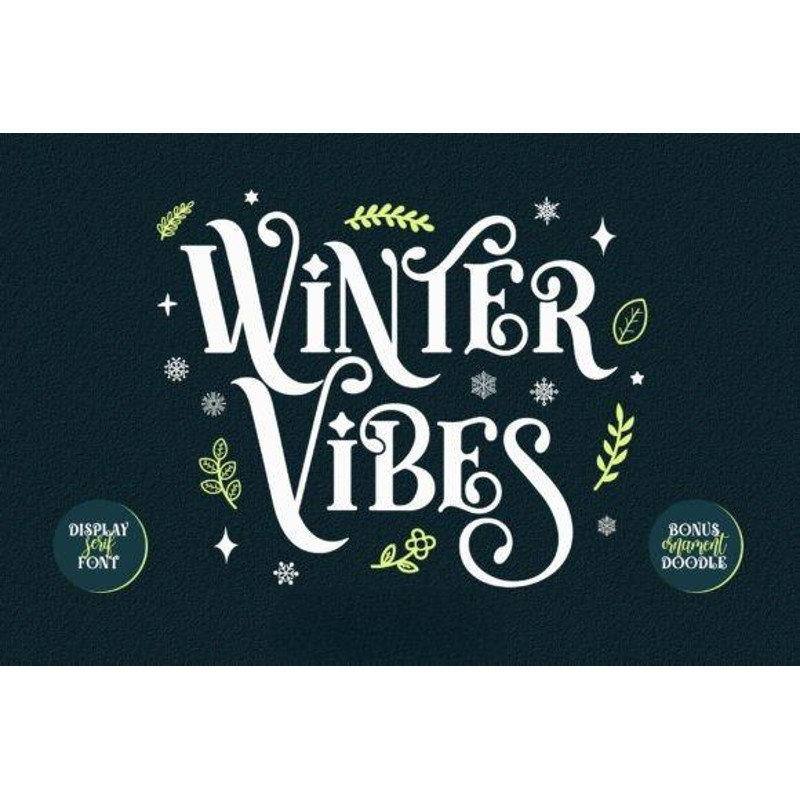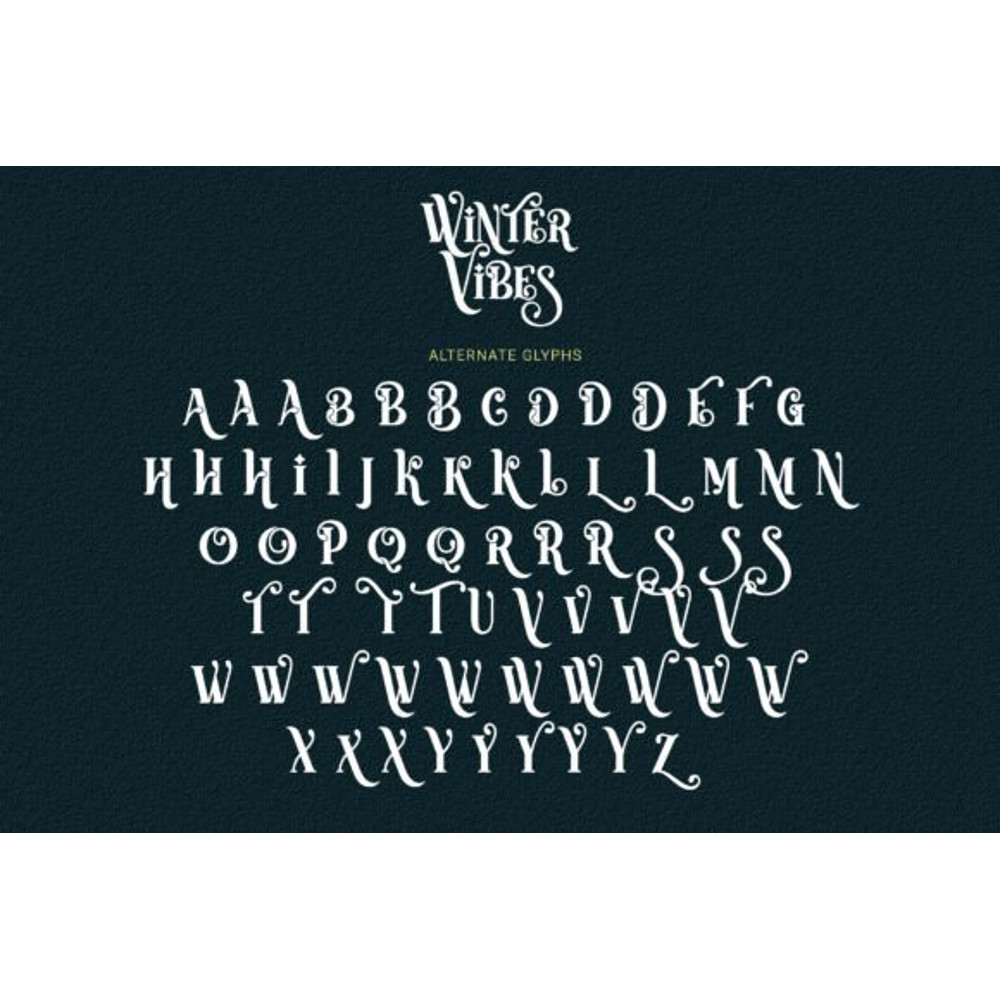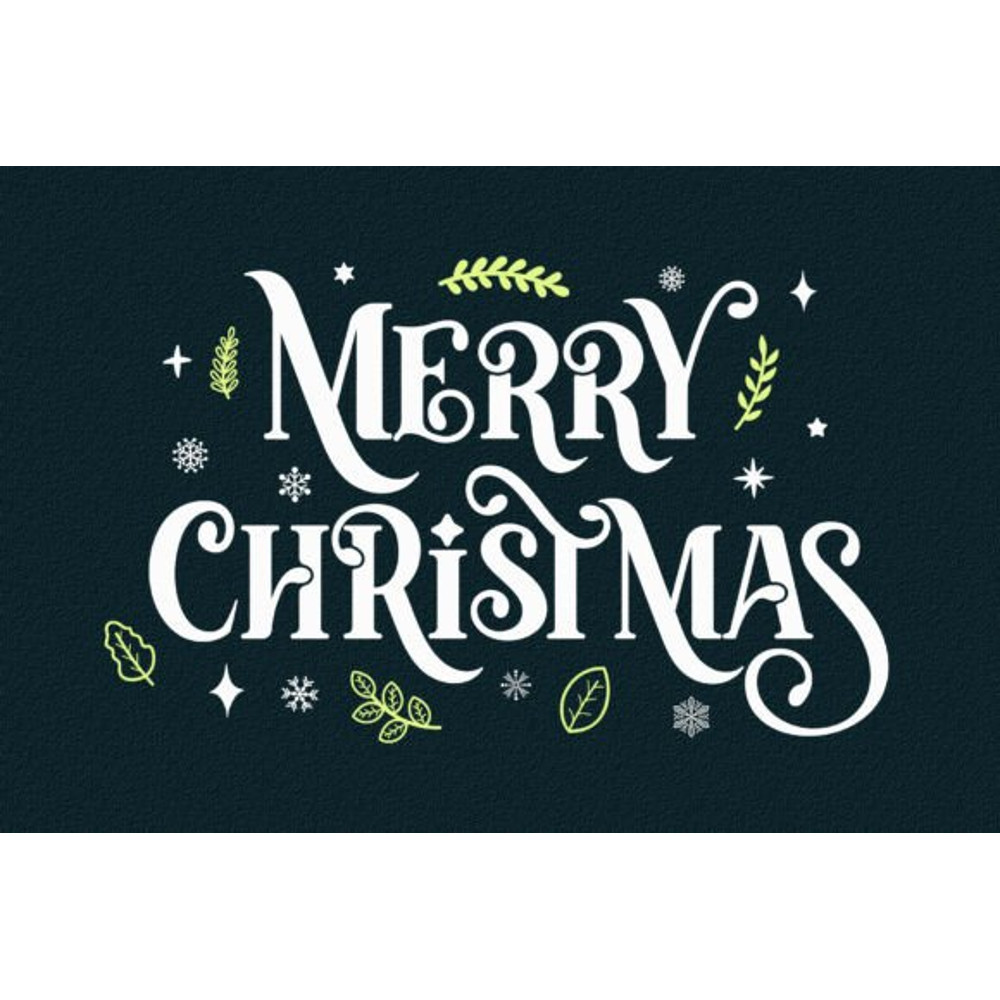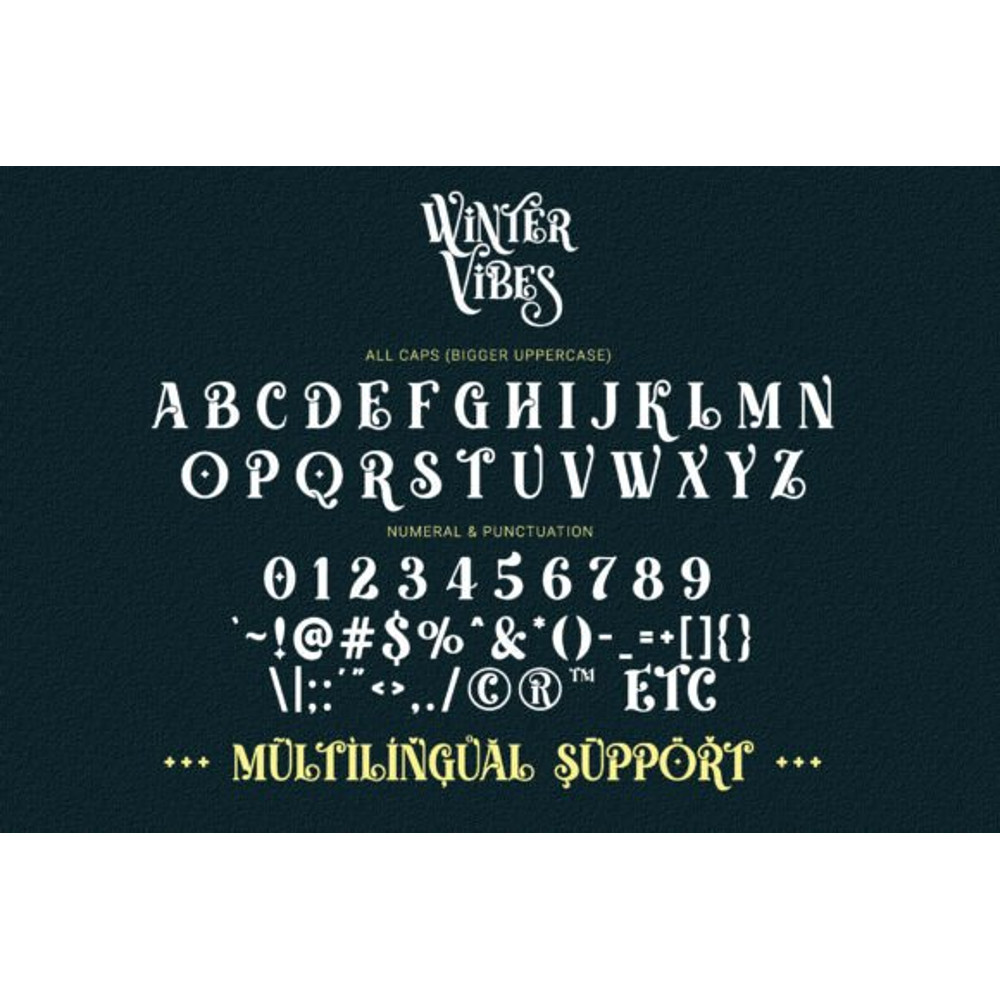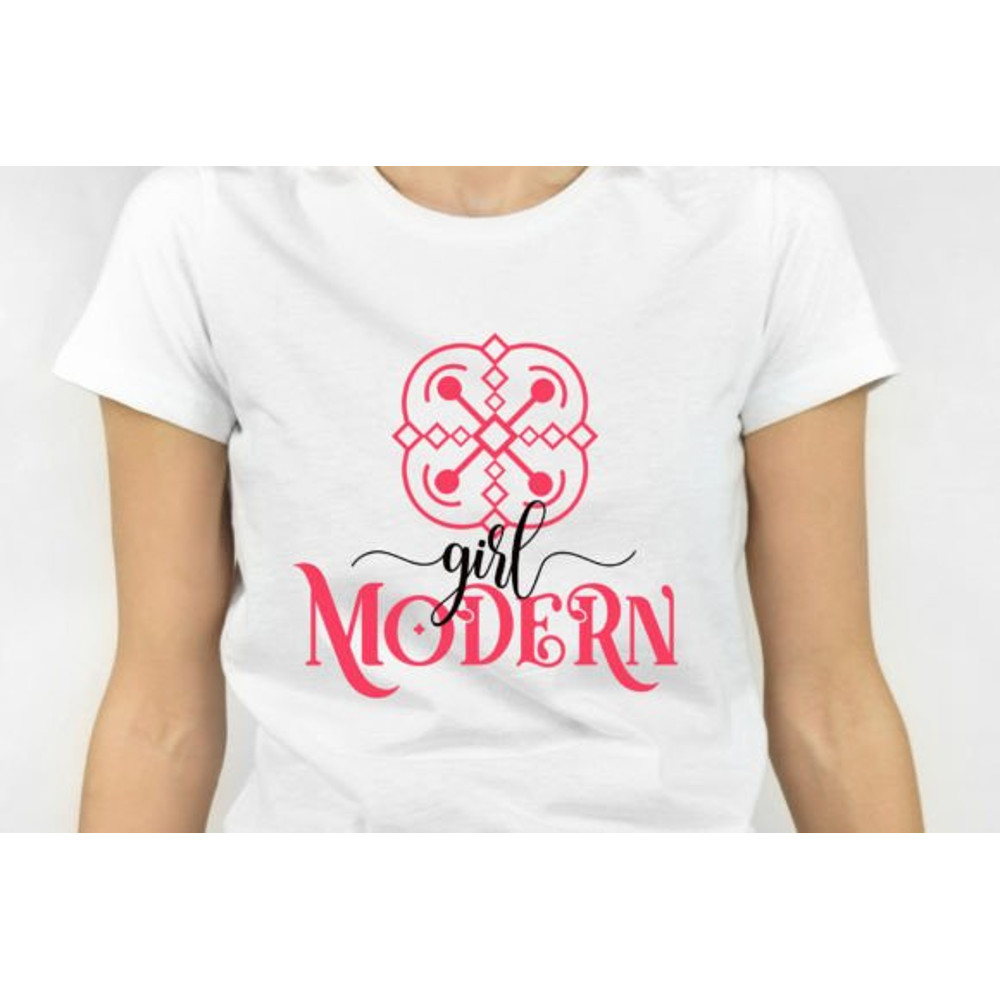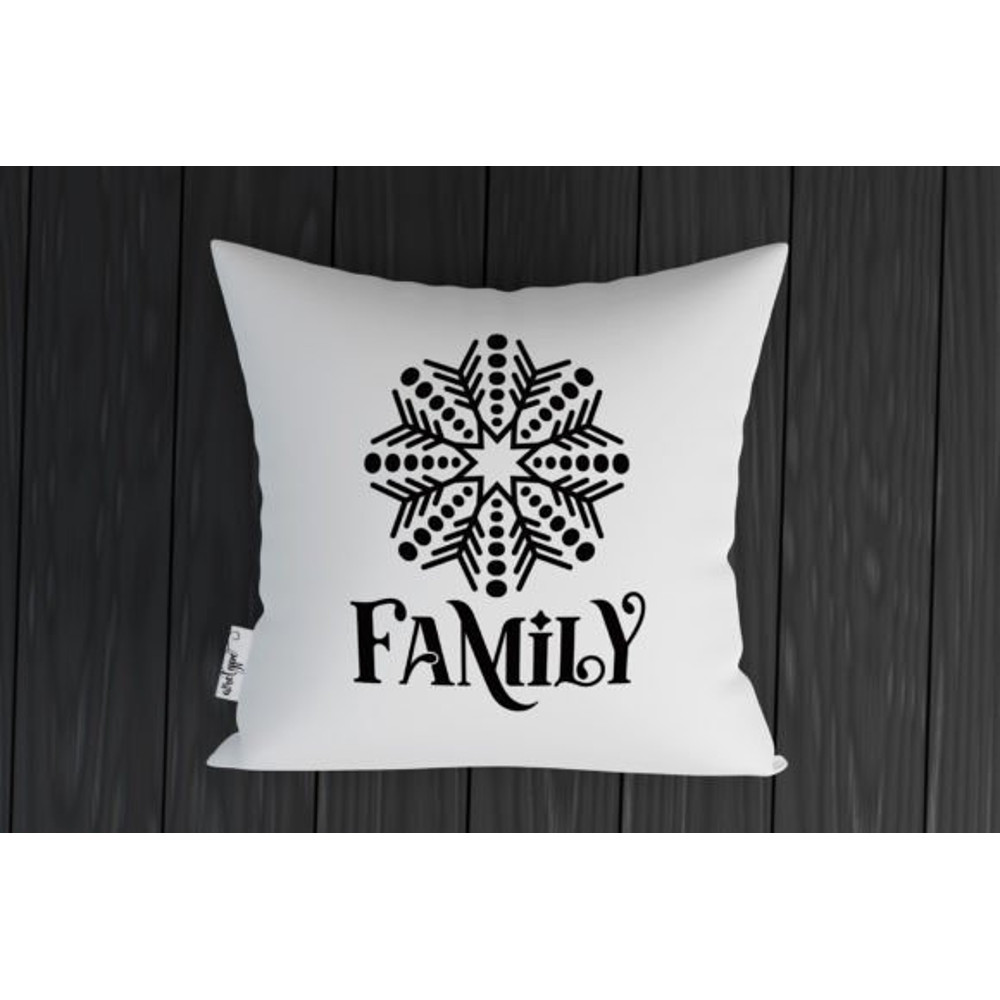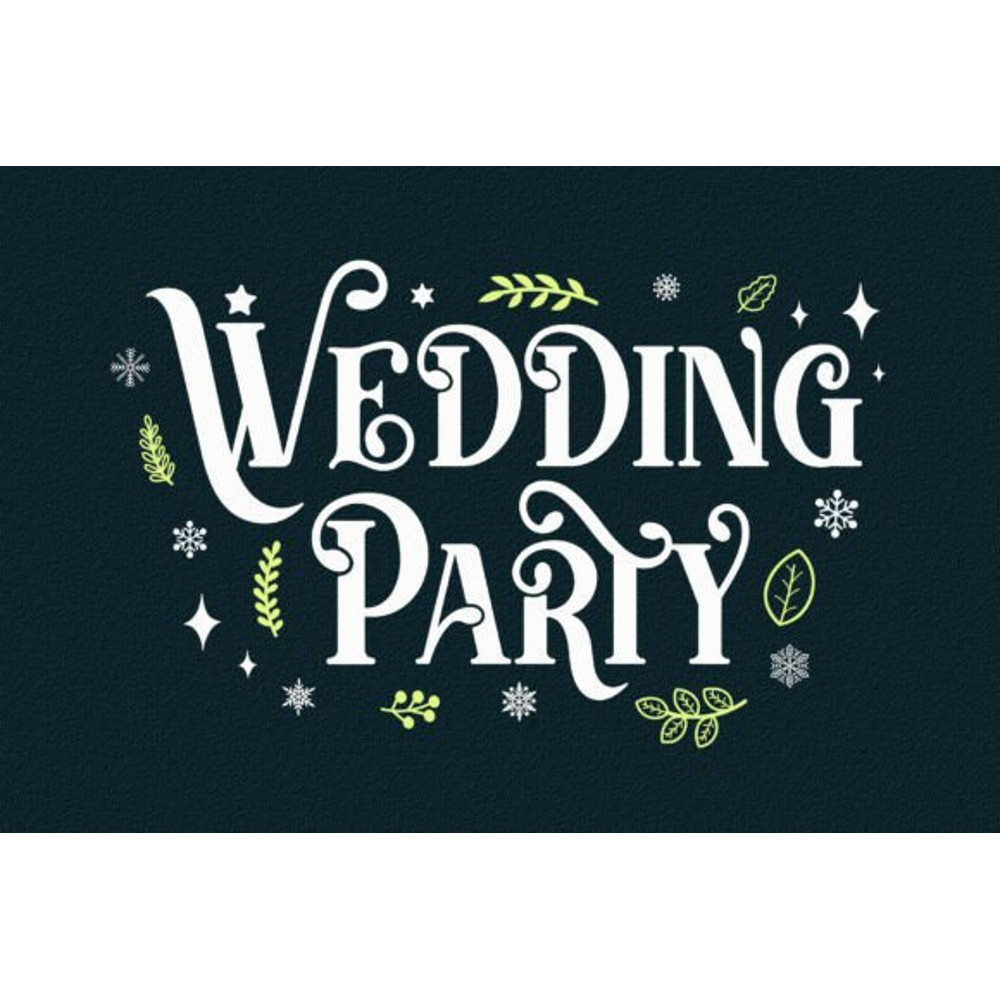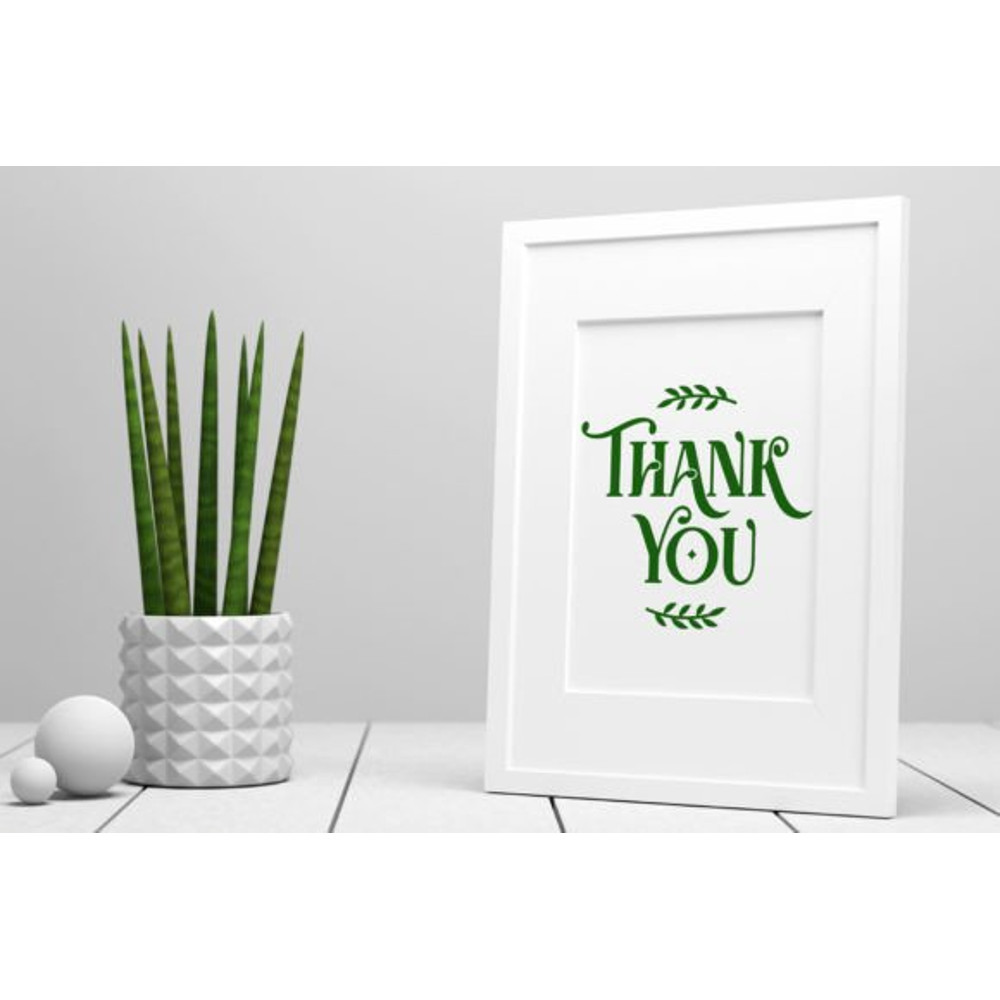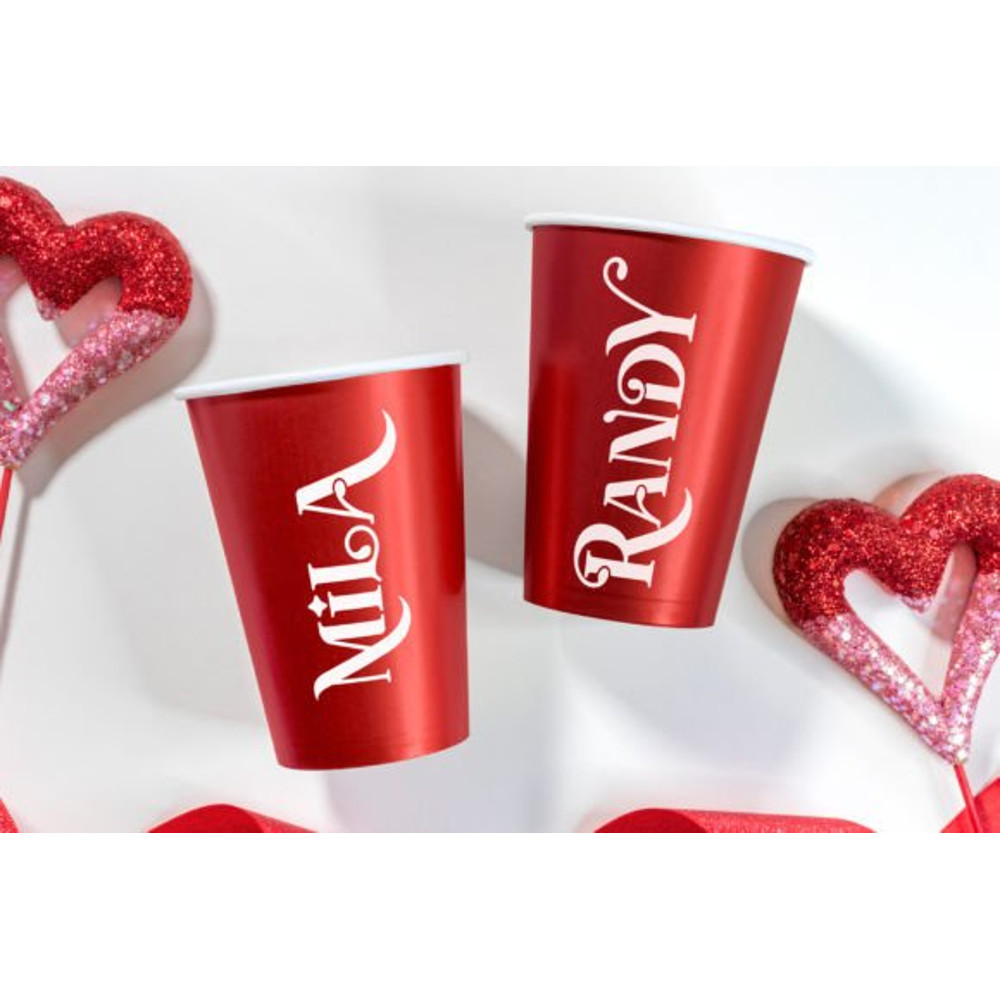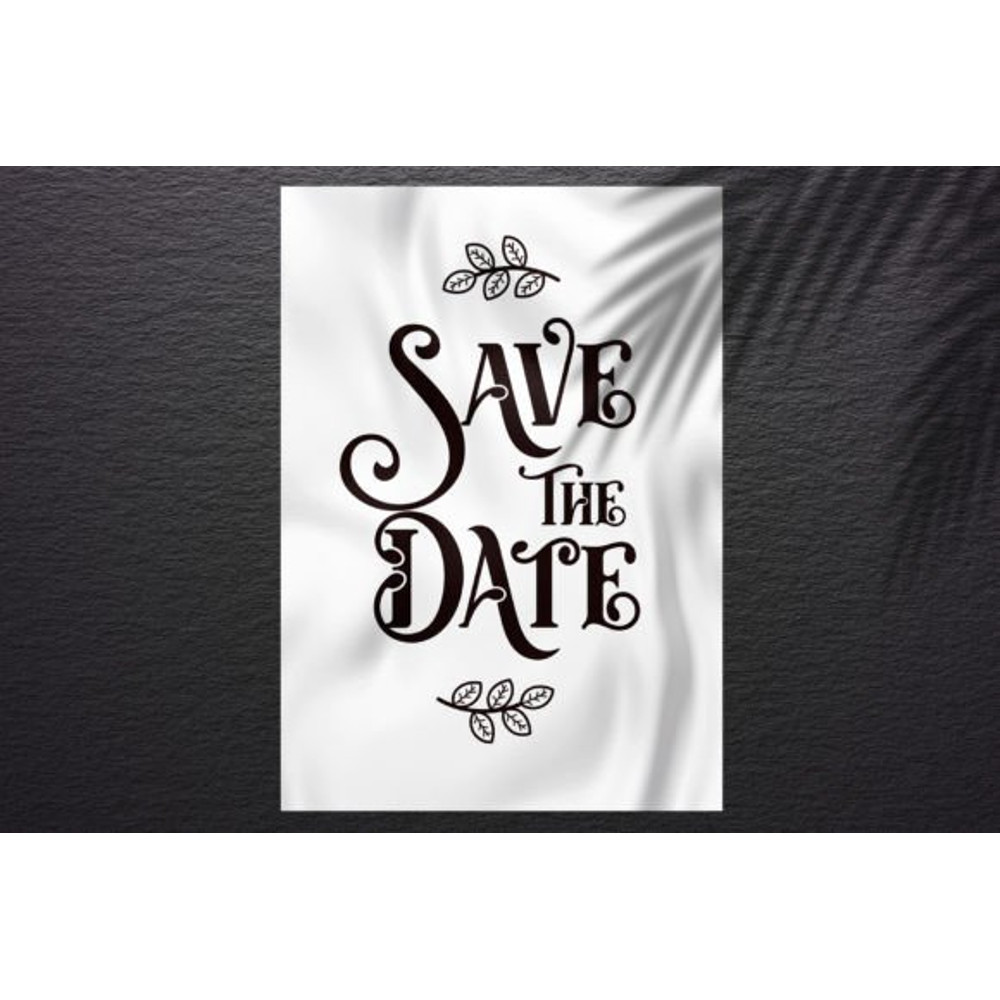
Winter Vibes Font
Winter Vibes is a modern and elegant display serif font. Feel the festive vibes and use this typeface to create fun and whimsical winter designs. This font is PUA encoded which means you can access all the glyphs and ligatures with ease!